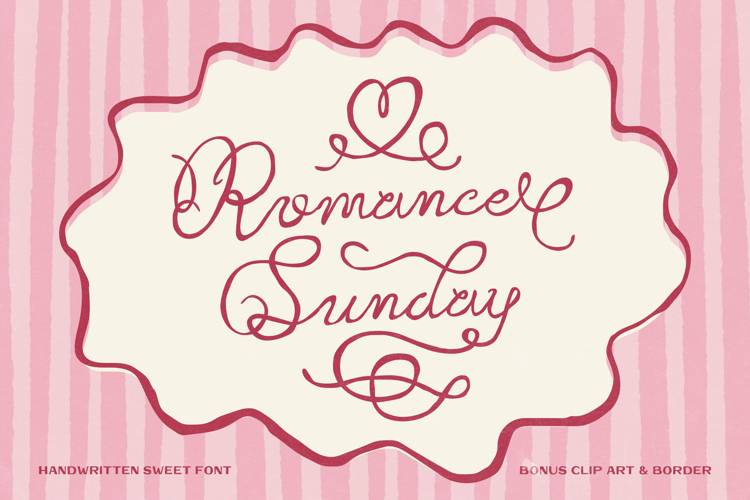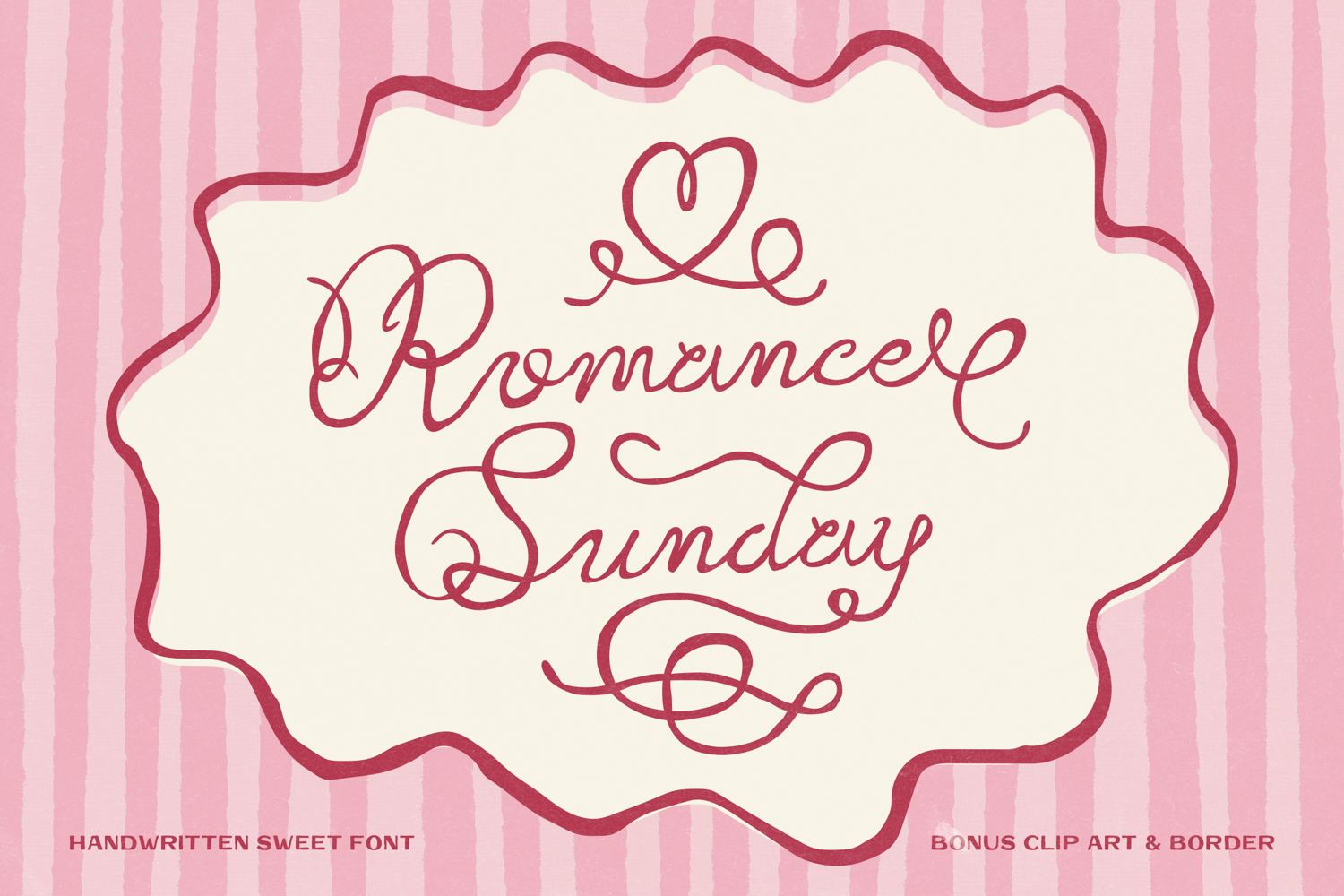
Unveiling "Romance Sunday" - the artisan's dream, a perfectly handcrafted romantic script that paints a picture of elegance and intimacy. Beautifully complemented with alternate characters and a luxuriant swash, this font oozes charm and character. But the true beauty of Romance Sunday lies in its intricate details - a set of hand-drawn clipart and borders that seamlessly align with the font, creating a harmonious blend of art and typography. Unleash a world of creativity and romance with this font
Great for wedding greeting cards, logos, branding materials, business cards, quotes, posters, Cricut artwork and more!